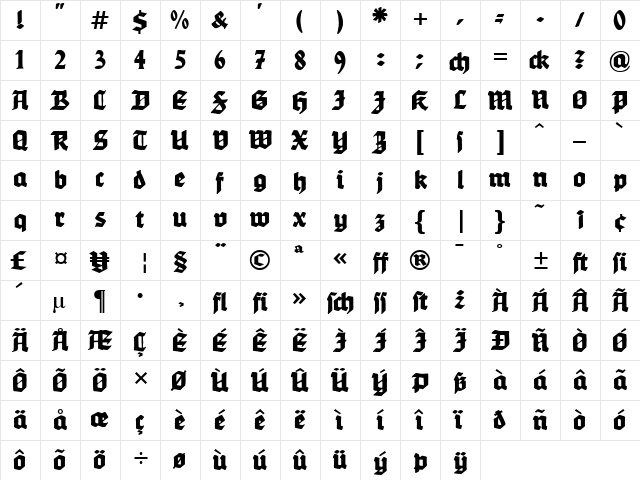
Werbedeutsch Heavy
| Designer | Dieter Steffmann |
| Copyright | Copyright (c) Typographer Mediengestaltung, 2002. All rights reserved. Geschaffen von Herbert Thannhaeuser, 1934. Digitalisiert durch Dieter Steffmann, Kreuztal |
Design Context for Werbedeutsch Typeface
Werbedeutsch is a composed and adaptable typeface that performs quietly and consistently across a wide range of design contexts.